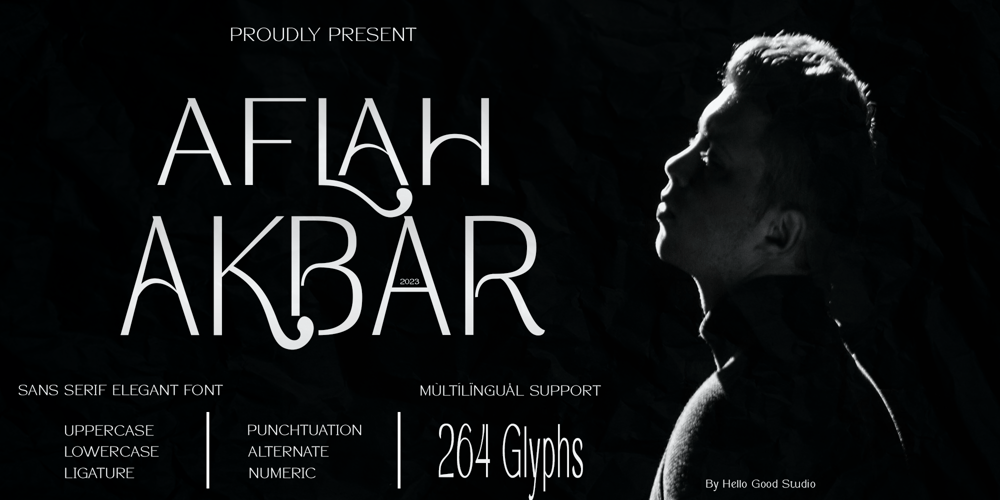
Aflah Akbar Font Family was designed by Rachmad Bagus Fatchi and published by Studio Hello Good. Aflah Akbar contains 5 styles and family package options. Aflah Akbar is an elegant sans serif font with lots of ligatures in it, this font has 354 glyphs so it is perfect for those of you who want to use it as a logo or other design needs, whether it’s for magazines, skincare, perfume, jewelry, stationary offices, newspapers, book covers. , web designing.The Aflah Akbar font has regular, smooth, slant, shadow, line and 3d options, the Aflah Akbar font itself can support 67 languages.